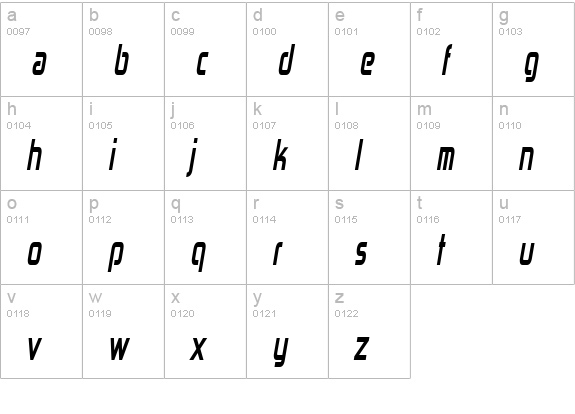
Zekton Cd Bold Italic is a strong, high-contrast, italic variant in the Zekton typeface family \xE2\x80\x94 well suited to headlines, attention-grabbing titles, and strong calls-to-action.
Zekton Cd Bold Italic font is a modern and stylish typeface that exudes confidence and sophistication. Its bold and italic design makes it stand out, perfect for creating eye-catching titles and headings. This versatile font is suitable for a wide range of design projects, from posters to packaging to branding. What sets Zekton Cd Bold Italic font apart is that it is available for free download at FontsMarket.com. This means you can easily access this high-quality font without any cost, making it a valuable addition to your font collection. Don't miss out on the opportunity to elevate your designs with the bold and dynamic look of Zekton Cd Bold Italic font. Download it today and let your creativity shine!